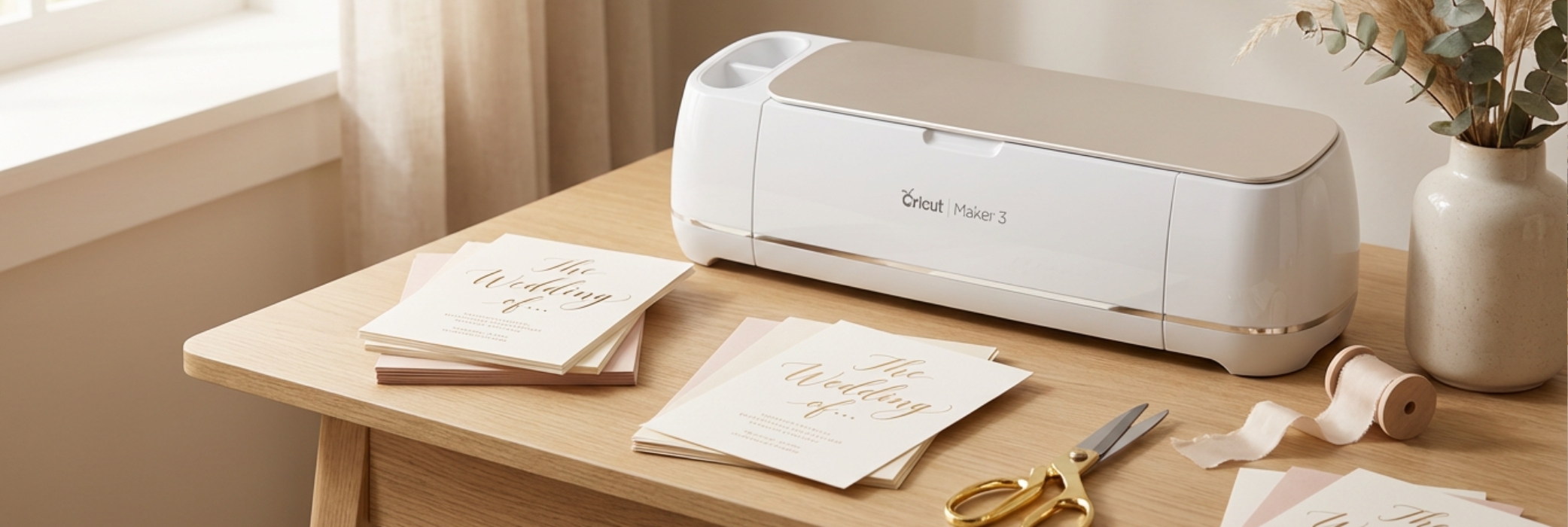
Whether you’re cutting vinyl for farmhouse signs, making wedding decorations, or crafting personalized gifts, calligraphy fonts bring an unmistakable elegance to every Cricut project. If you’re also looking for handwritten styles, check out our guide to the 25 best script fonts for Cricut. Unlike standard fonts, calligraphy-style typefaces have flowing strokes, graceful curves, and natural ink-pen character that make your work look truly handcrafted.
We searched through thousands of fonts on Creative Fabrica to build this curated list of the 30 best calligraphy fonts for Cricut. Every font here was chosen for its clean vector paths, beautiful letterforms, and versatility across different project types — from wedding stationery to home decor, vinyl decals to personalized tumblers. All fonts come with commercial use rights included in a Creative Fabrica subscription.
1. Flower Spring Font
Flower Spring Font is a modern calligraphy typeface with an organic, nature-inspired flow. Its lush, botanical letterforms make it a standout choice for Cricut spring decor, floral-themed wall art, and elegant garden party invitations.
2. Vintage Signature
Vintage Signature combines the charm of classic penmanship with a timeless, luxurious feel. It’s a perfect calligraphy font for Cricut projects like monogram tumblers, vintage-inspired labels, and upscale branding designs.
3. Gristha
Gristha is an elegant handwritten calligraphy font with graceful curves and confident strokes. It’s a natural fit for Cricut vinyl signs, custom gift wrapping, and sophisticated wedding stationery.
4. Kimily
Kimily is a flowing, feminine calligraphy script with soft connections and graceful loops. Cricut crafters love it for romantic home decor, personalized tote bags, and sweet baby shower signs.
5. About Heart
About Heart is a chic calligraphy font with heart-inspired connections that add an intimate, loving touch to any design. It’s the go-to font for Cricut Valentine’s Day projects, anniversary gifts, and romantic home decor.
6. Bilgia
Bilgia is a sophisticated modern calligraphy font with sharp, ink-brush character. Its bold, confident strokes cut beautifully on Cricut for premium product labels, bold wedding signage, and high-end gift packaging.
7. Brittiany Signature
Brittiany Signature is a clean, modern signature-style calligraphy font with natural ink flow. It’s ideal for Cricut personalized tumblers, monogram designs, and sleek modern wedding invitations.
8. Masterline Calligraphy
Masterline Calligraphy delivers classic, pen-drawn letterforms with a master calligrapher’s precision. It’s an excellent choice for Cricut quote art, formal invitations, and chalkboard signs that demand authentic elegance.
9. Majestic Calligraphy
Majestic Calligraphy lives up to its name with grand, sweeping strokes and regal letterforms. Cricut crafters will love it for statement wall art, luxurious greeting cards, and upscale event signage.
10. Bride Minimalist Font
Bride Minimalist Font is a sleek, refined calligraphy script with a modern minimal aesthetic. It’s perfect for Cricut wedding projects, bridal party gifts, and sophisticated event decor where less is more.
11. Hailey
Hailey is a romantic calligraphy font with soft, delicate curves and beautifully flowing connections. It’s a favourite for Cricut crafters making floral gift tags, wedding favour labels, and dreamy nursery signs.
12. Amelia Giovani
Amelia Giovani is an Italian-inspired calligraphy font with rich, artisan character. Its expressive letterforms work beautifully for Cricut wine label art, handcrafted stationery, and artisanal product packaging.
13. Wildcats
Wildcats is a bold, energetic calligraphy script with a fierce, expressive edge. It’s a great Cricut font choice for sporty designs, iron-on transfers, and any project that needs personality and attitude in the lettering.
14. Andelintia
Andelintia is a graceful calligraphy font with long, elegant descenders and swooping tails. It’s a beautiful Cricut choice for formal wedding stationery, luxury brand packaging, and elegant table décor signs.
15. Dairy Day
Dairy Day is a warm, friendly calligraphy font with a casual, down-to-earth personality. It’s a versatile Cricut pick for kitchen signs, farmers market labels, and cozy home decor projects with a rustic vibe.
16. Melody Sunday
Melody Sunday is a lyrical, musical calligraphy font with a rhythmic, flowing quality. It’s a wonderful Cricut font for inspirational quote prints, music-themed gifts, and cheerful vinyl decals for creative spaces.
17. Quincy
Quincy is a handwriting calligraphy font with an authentic, ink-on-paper quality. Its natural, slightly irregular strokes give Cricut projects a genuine handcrafted look — perfect for personalised gifts, journal covers, and artisan product branding.
18. Bridgerton
Bridgerton is a Regency-era-inspired calligraphy script with aristocratic elegance. Its refined, period-accurate letterforms are a stunning choice for Cricut book-themed décor, historical cosplay projects, and romantic event signage.
19. Beautica Beautiful Calligraphy
Beautica is a lush, ornate calligraphy font with beautifully detailed swashes and flourishes. It’s an eye-catching Cricut choice for decorative labels, opulent gift wrap lettering, and lavish wedding invitation suites.
20. Affection
Affection is a tender, soft calligraphy font designed to convey warmth and emotion. It cuts cleanly on Cricut for heartfelt greeting cards, Valentine’s gifts, romantic home accents, and sweet couple-themed decor.
21. Tail
Tail is a distinctive calligraphy font with exaggerated, artistic tails and a dramatic visual presence. It’s a great Cricut font for statement art prints, decorative logos, and high-impact vinyl signs that demand attention.
22. Paint Brush Script
Paint Brush Script mimics the expressive strokes of a real paint brush, giving your Cricut projects an authentic handpainted feel. It’s ideal for rustic signs, farm-style kitchen décor, and artistic home accessories.
23. Willowshine
Willowshine is a graceful calligraphy font with a dreamy, nature-inspired quality. Cricut crafters reach for it when designing botanical wall art, spring-themed gifts, and soft, feminine vinyl decals for home or wedding use.
24. Augusthin Beatrice
Augusthin Beatrice is a classic, vintage calligraphy font that channels the refined penmanship of the past. It’s a gorgeous pick for Cricut heritage-themed projects, antique-style labels, and timeless monogram designs.
25. Symphonie Calligraphy
Symphonie Calligraphy has a musical, flowing quality that brings harmony and elegance to any Cricut design. Use it for concert-themed gifts, creative home decor, and any project where you need beautiful, flowing lettering.
26. Lil’Baby Script
Lil’Baby Script is an adorable, playful calligraphy font with a sweet, youthful energy. It’s a top Cricut choice for baby shower décor, nursery wall art, personalised onesies, and children’s party supplies.
27. Romantika
Romantika is a deeply expressive calligraphy font with romantic, old-world elegance. It’s perfect for Cricut projects like anniversary gifts, love letter-themed prints, and intimate wedding details that deserve a truly special touch.
28. Gastonia Script
Gastonia Script is a modern calligraphy font with clean, confident letterforms and natural ink-pen flow. It’s a reliable Cricut staple for everyday crafts — from personalised mugs and tote bags to stylish home signs.
29. Rustic Wedding
Rustic Wedding is a warm, textured calligraphy font with a perfectly imperfect charm. It’s ideal for Cricut barn-style wedding projects, farmhouse signs, seating charts, and boho-themed bridal décor.
30. Authentic Calligraphy
Authentic Calligraphy delivers exactly what its name promises — a genuinely pen-crafted calligraphy aesthetic with every stroke. It’s the ultimate Cricut font for projects demanding real, ink-inspired lettering, from formal invitations to artisan packaging.
The best calligraphy fonts for Cricut combine flowing, graceful letterforms with clean vector paths that weed smoothly and cut reliably on every material. From the floral elegance of Flower Spring and the aristocratic charm of Bridgerton to the rustic warmth of Rustic Wedding and the bold personality of Wildcats, this list has a calligraphy font for every project style and occasion.